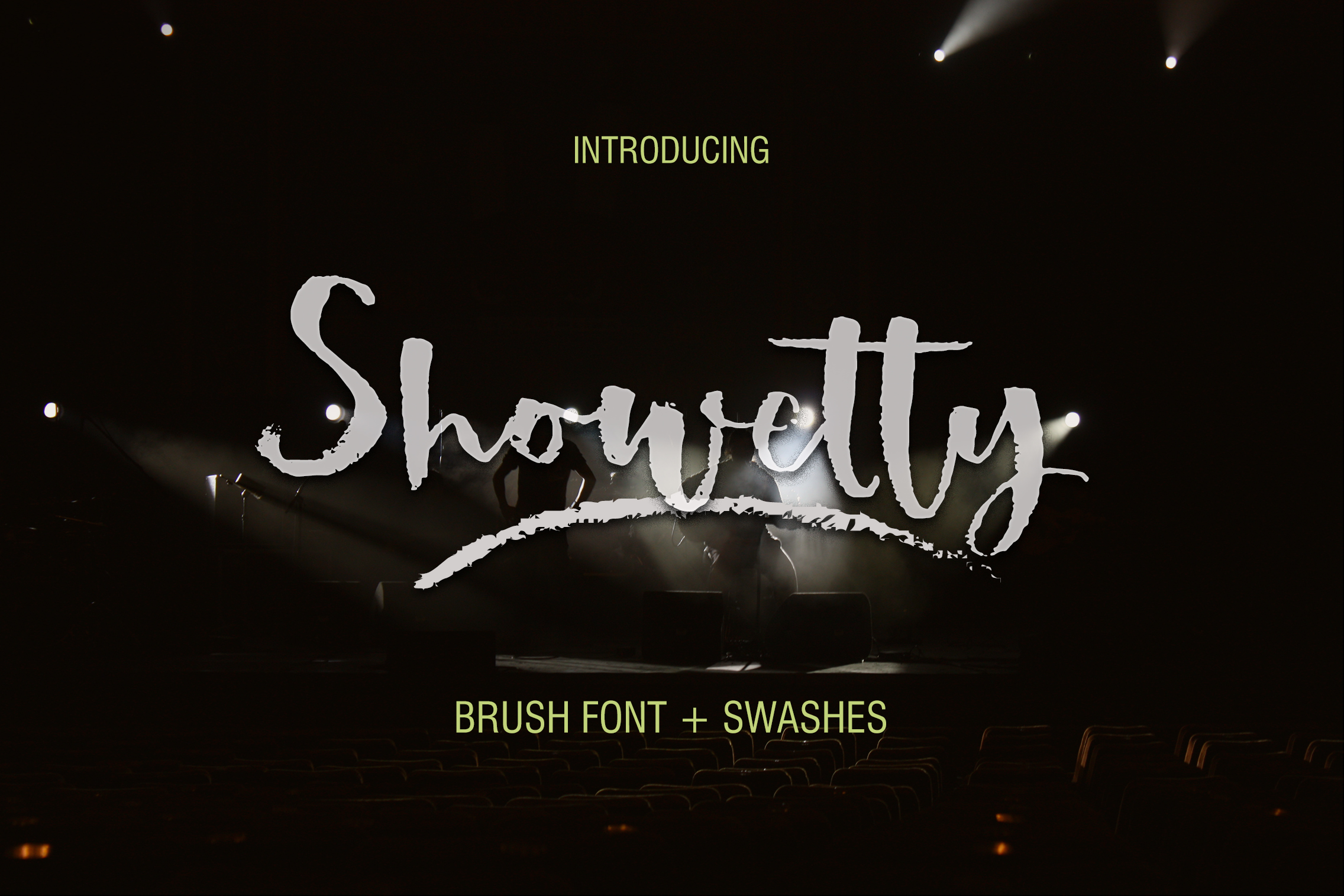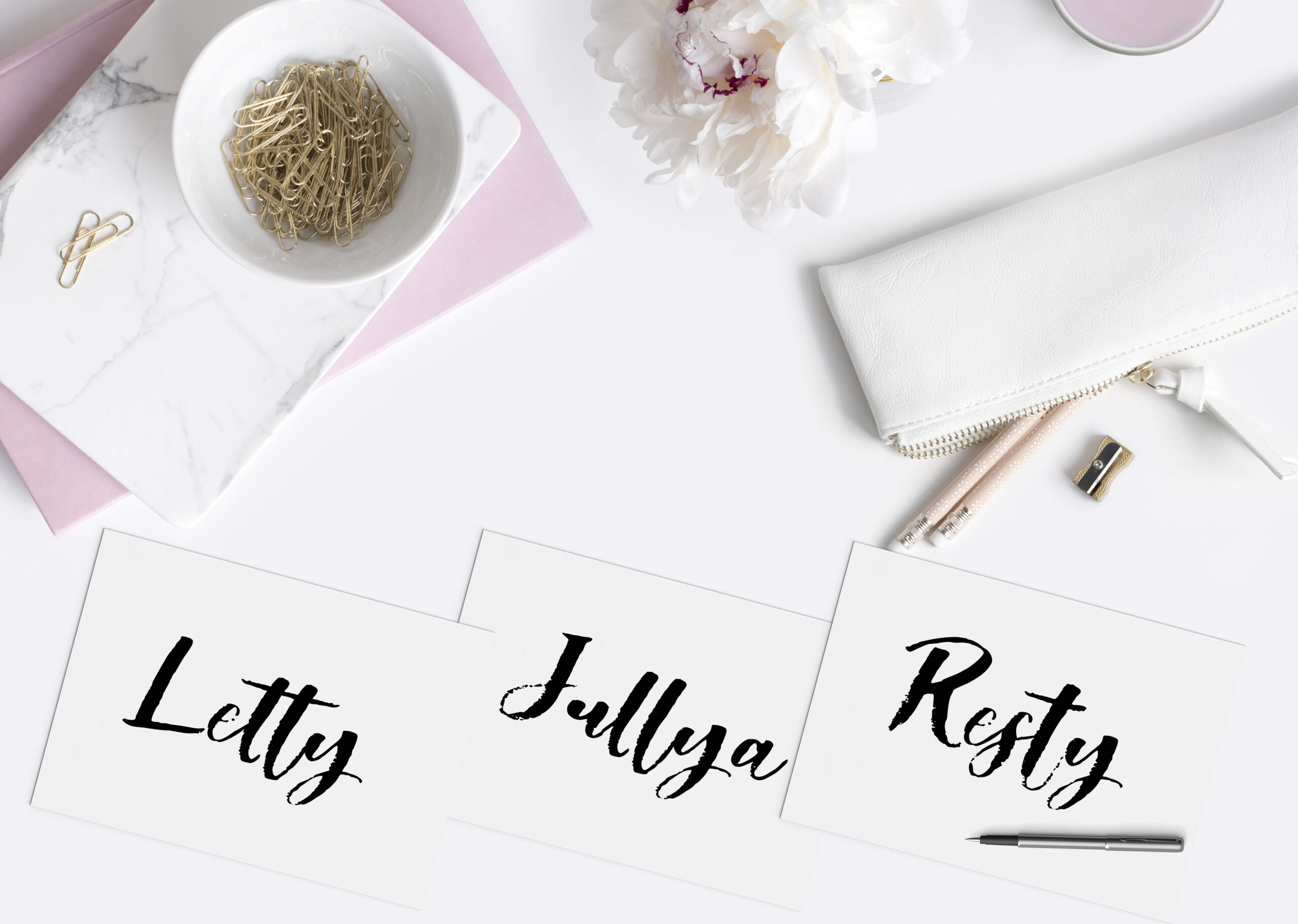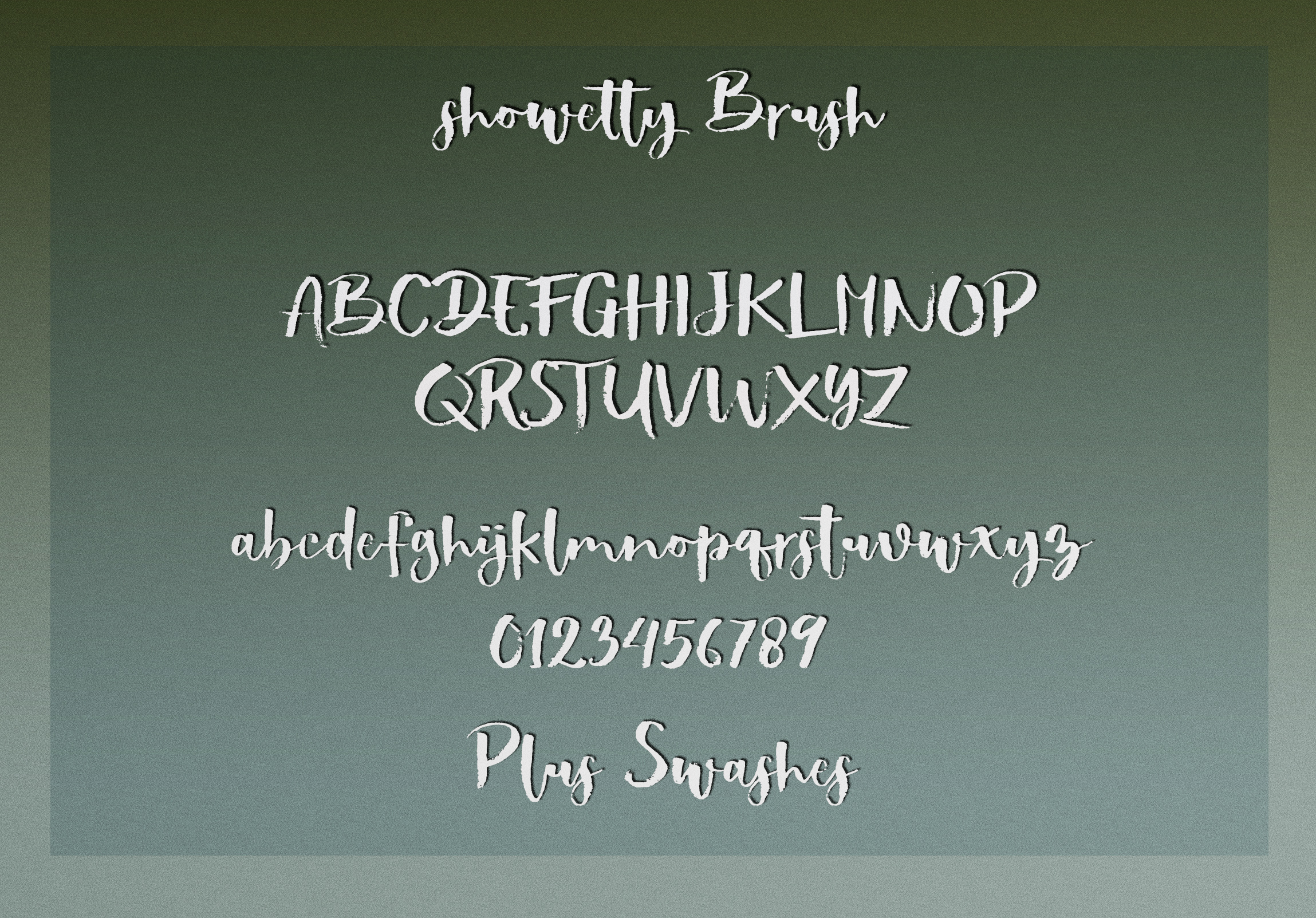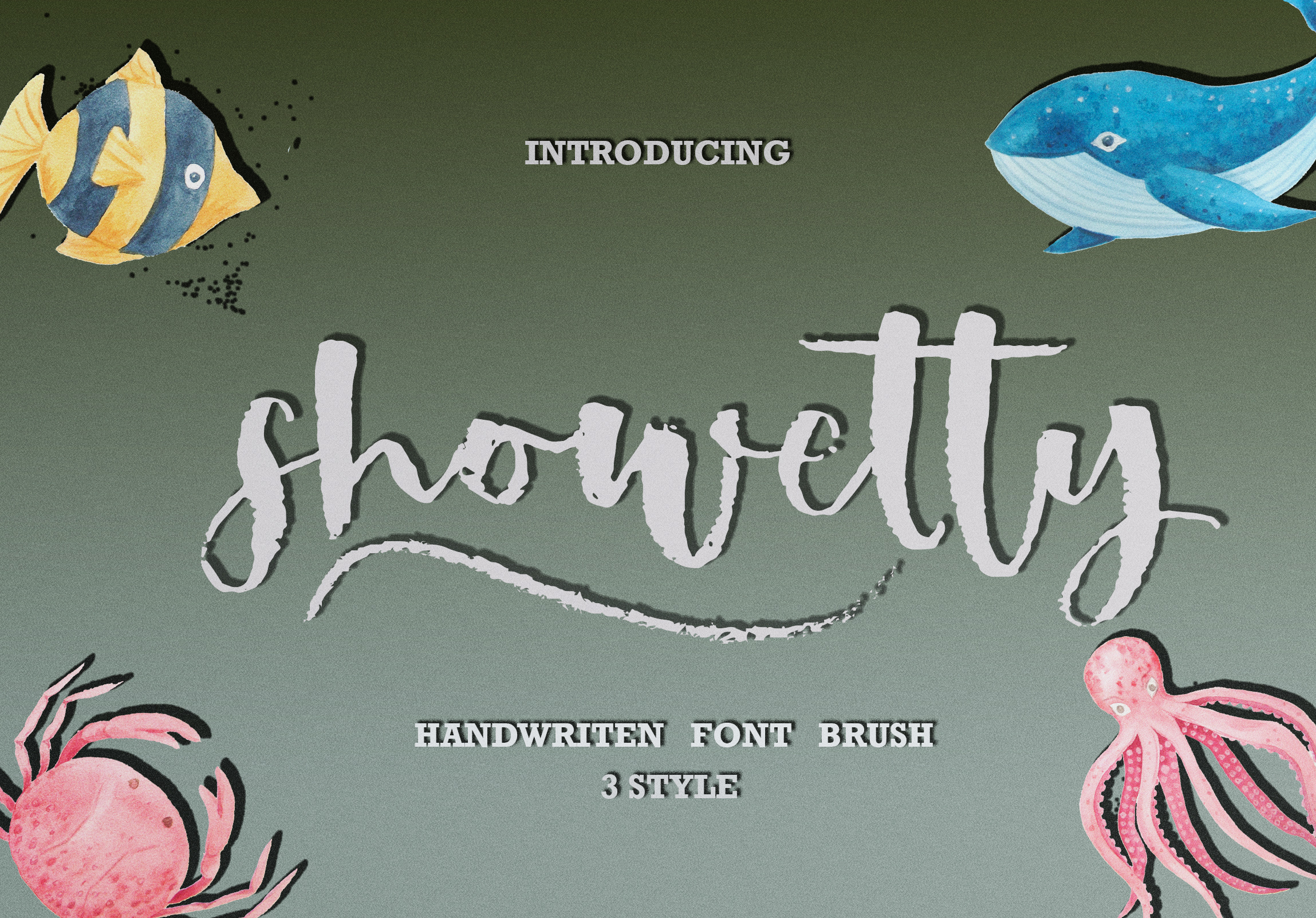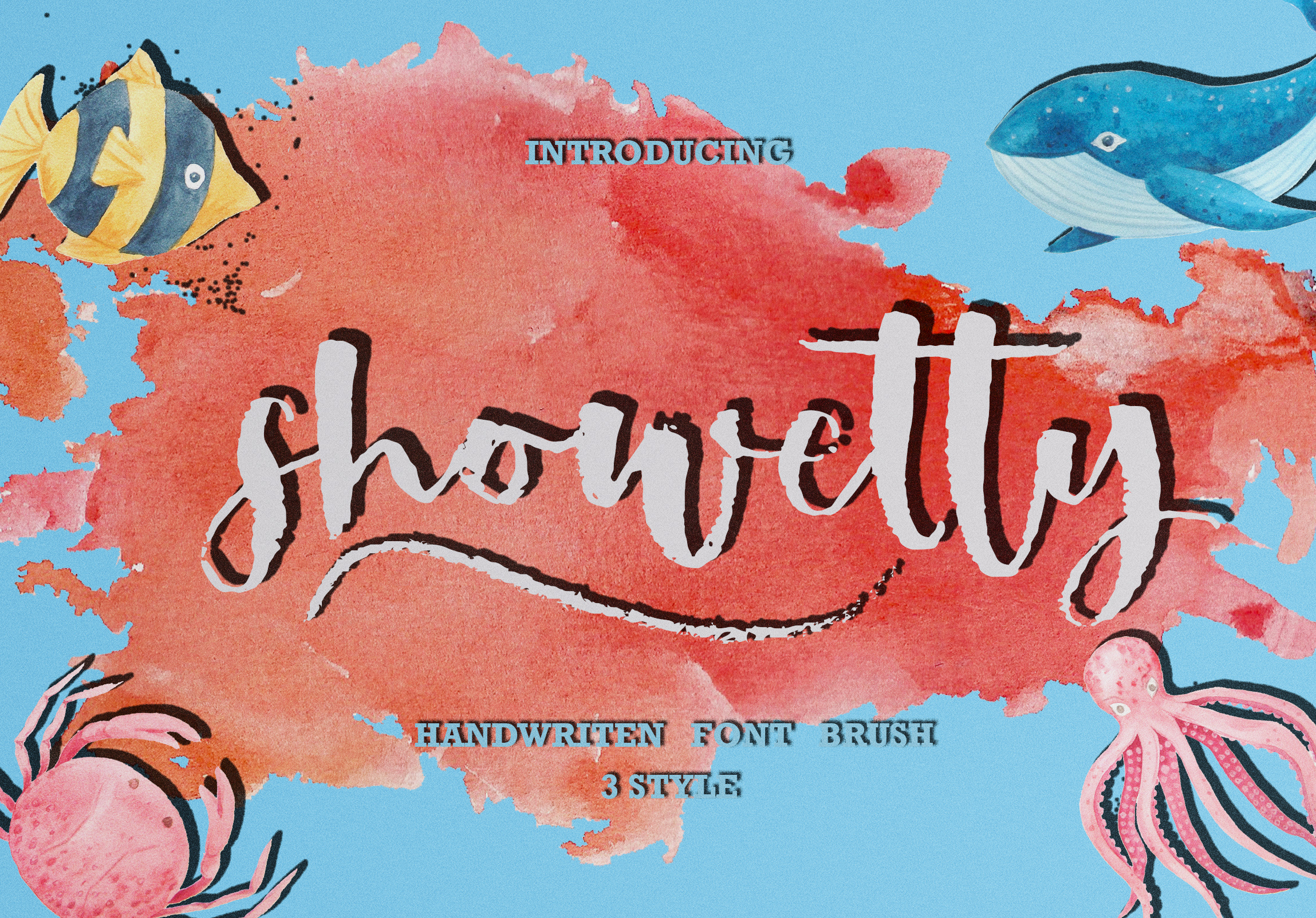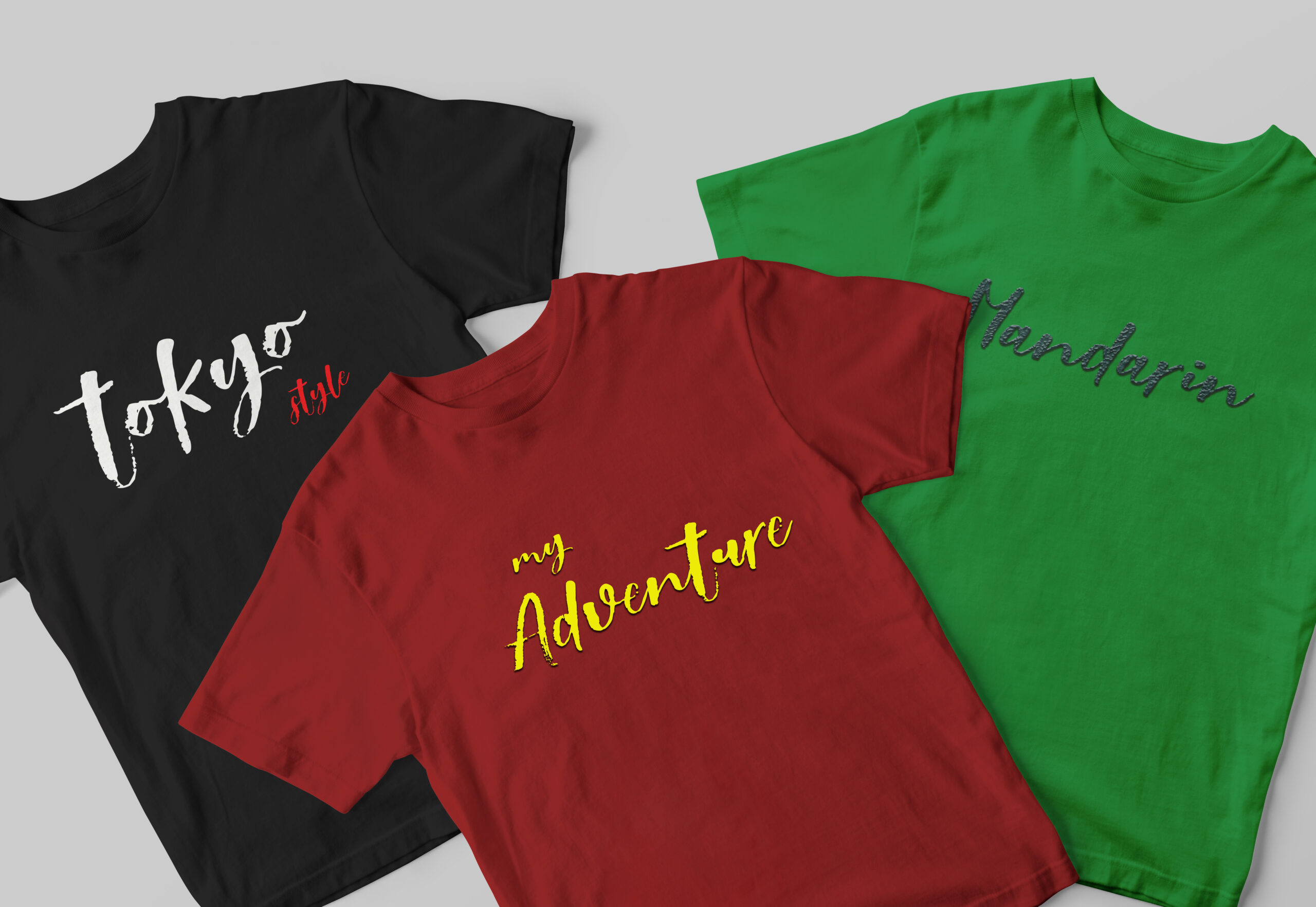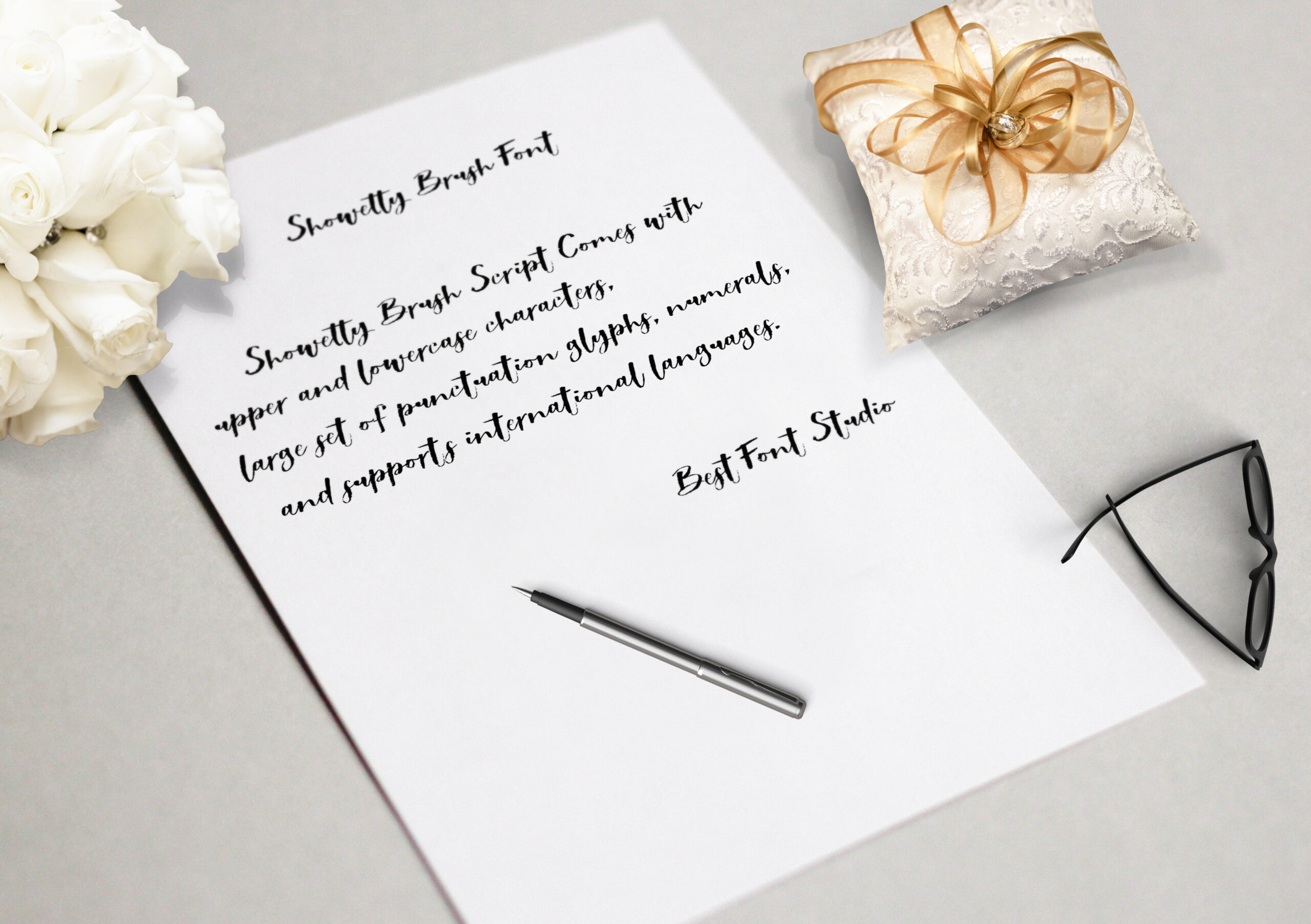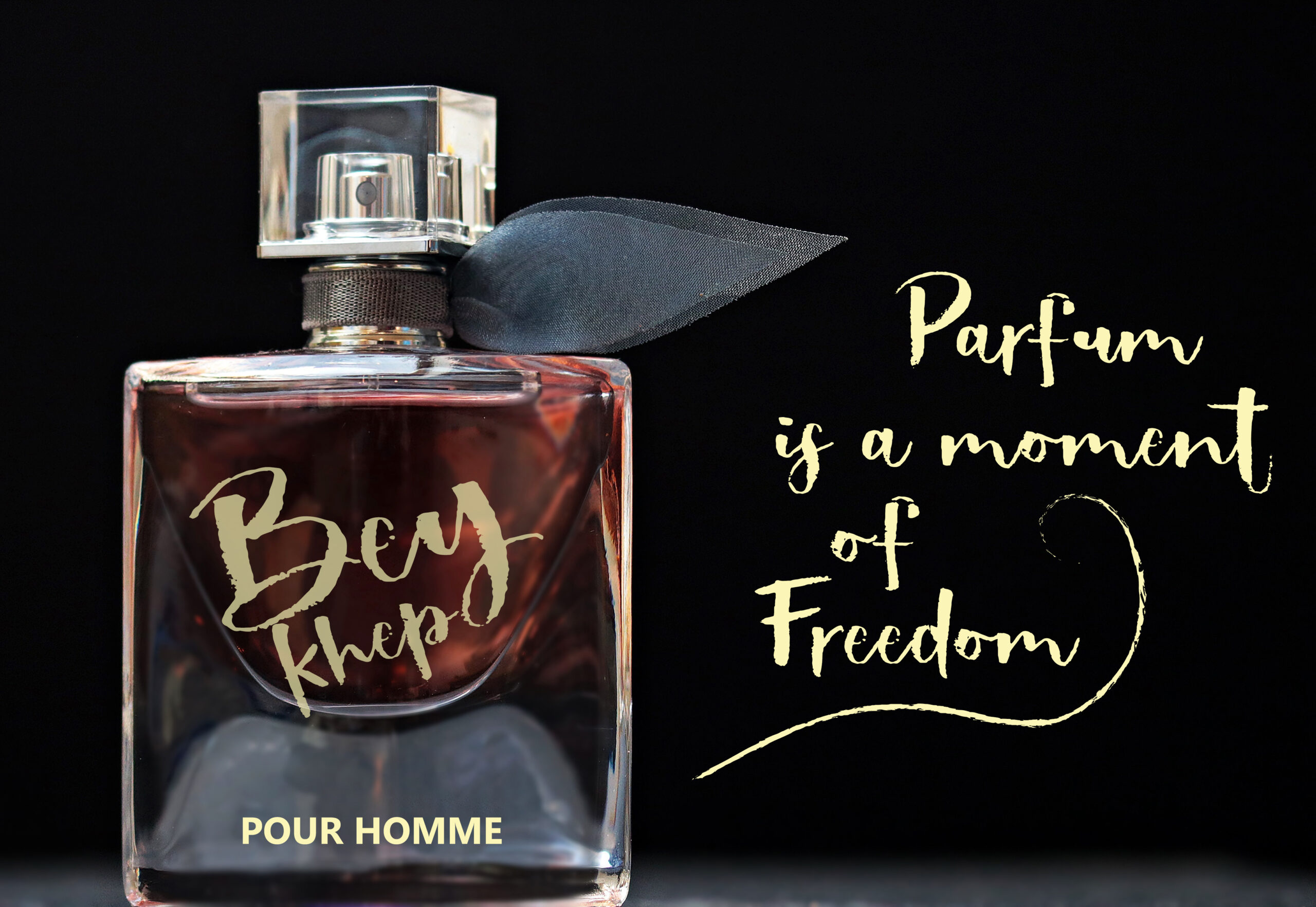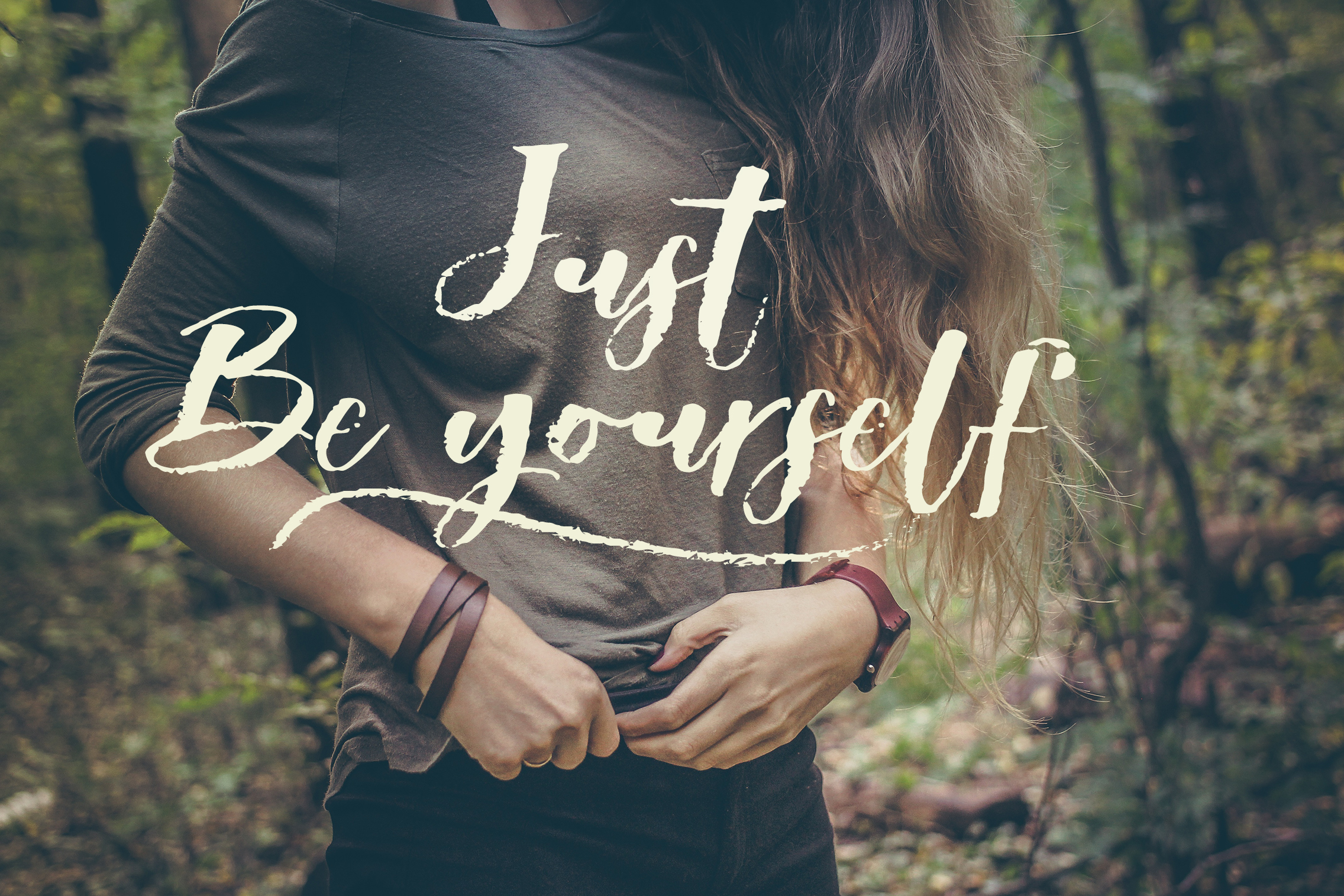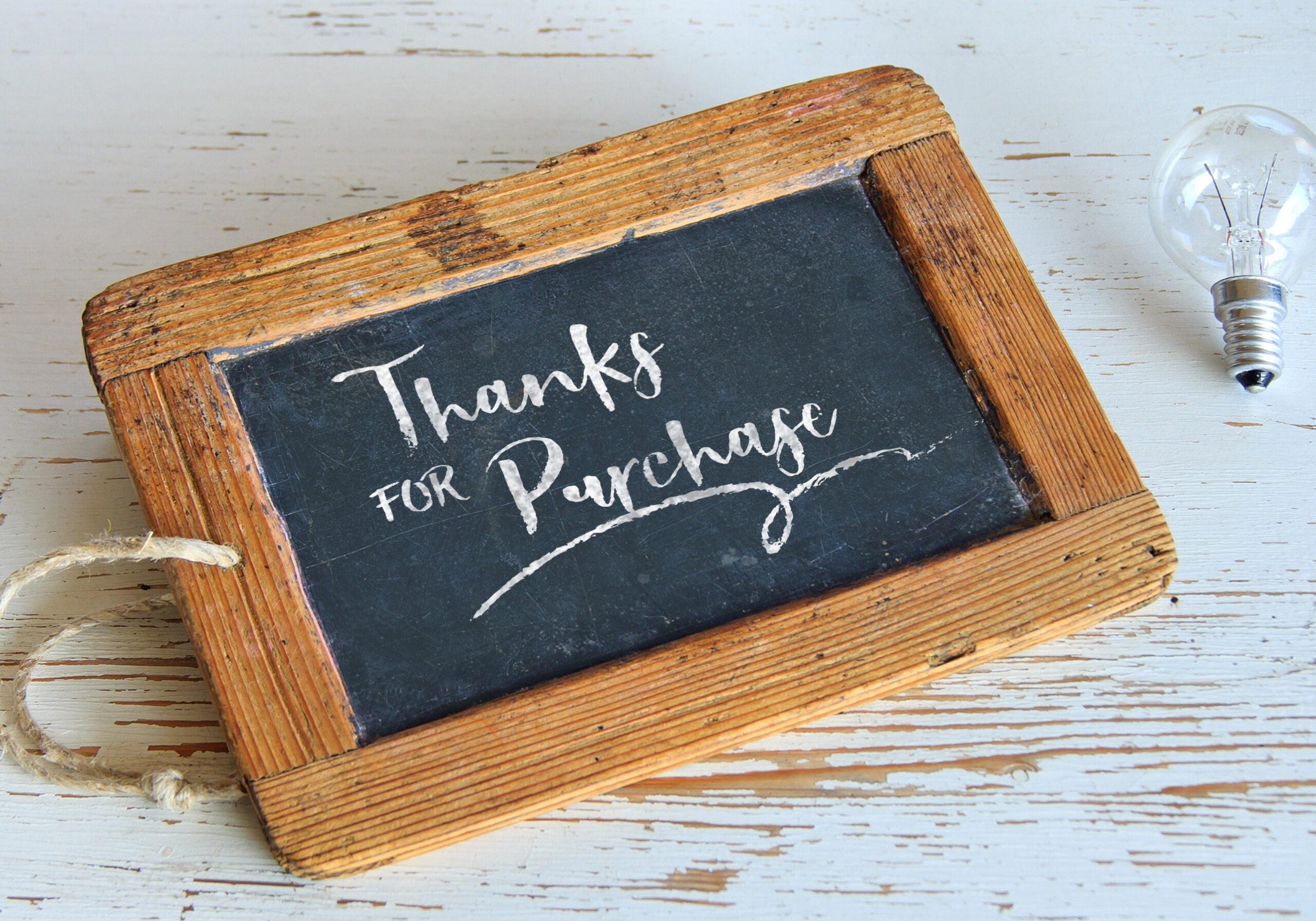
Showetty Font
About Showetty Font
Showetty is a set of 2 hand made marker fonts. They are designed to be combined and will allow you to add a hand-lettered touch to your designs in seconds.